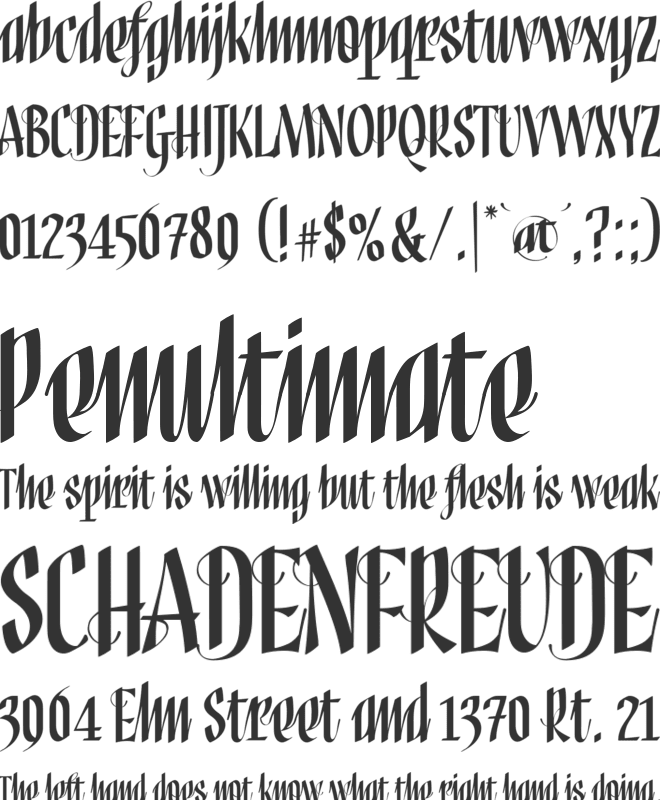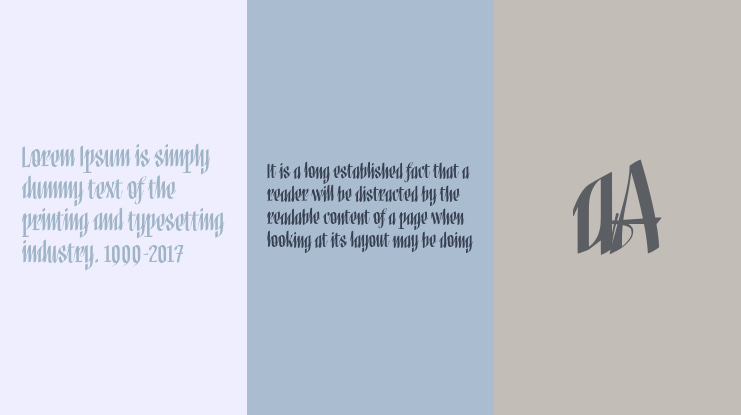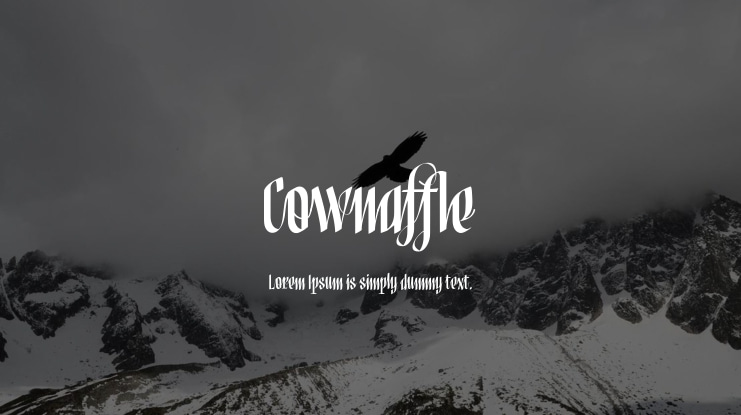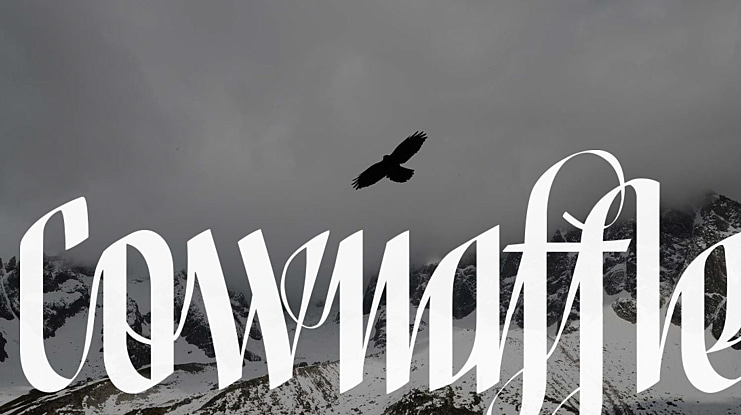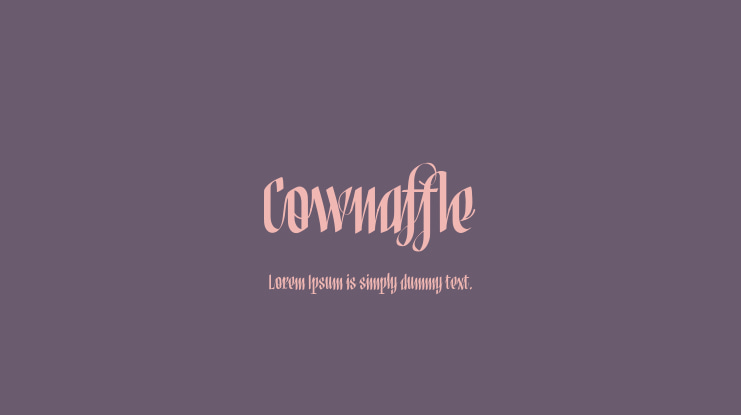
This script font was inspired by observing a particular clown-like president (whose name will remain unmentioned) while he was writing his signature. I despise the fool, but there was something intriguing about the almost entirely vertical lines of his handwriting. After much effort, I completed the font, incorporating additional connectors and ornamental flourishes. I also included a plethora of ligatures. Enjoy playing with it :)